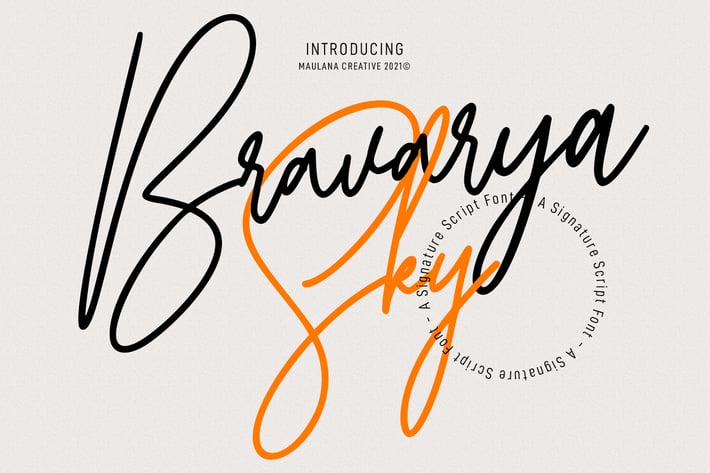
Bravarya Sky Signature Font
Bravarya Sky is a Casual Modern Signature font. With light mono-line stroke, Condensed, fun character with a some of natural ligatures. To give you an extra creative work. Bravarya Sky font support multilingual more than 100+ language. This font is good for logo design, Social media, Movie Titles, Books Titles, a short text even a long text letter and good for your secondary text font with sans or serif. Make a stunning work with Bravarya Sky font.